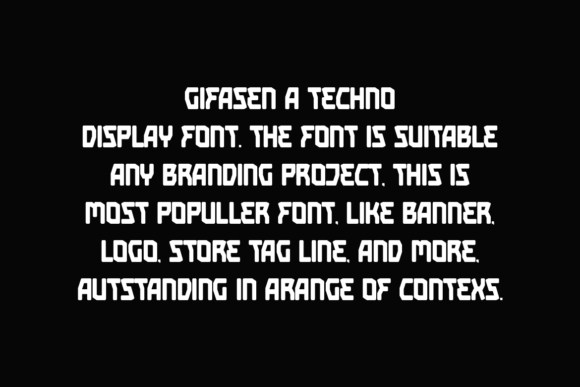
Gifasen Font: The Ultimate Display Font for Modern Urban Style
In the world of typography, fonts play a crucial role in conveying the tone and personality of a brand or design. With the ever-evolving landscape of graphic design, it’s essential to stay ahead of the curve with fresh and exciting fonts that capture the essence of modern urban style. One such font that has been making waves in the design community is Gifasen Font. In this article, we’ll dive into the world of Gifasen Font, exploring its unique features, uses, and benefits.
What is Gifasen Font?
Gifasen Font is a cool display font that exudes boldness and contemporary flair. Designed with striking shapes, dynamic angles, and eye-catching details, this font is perfect for designers looking to add a powerful and energetic vibe to their work. Whether you’re creating posters, logos, headlines, or social media graphics, Gifasen Font is the ideal choice for those who want to make a statement.
Key Features of Gifasen Font
- Bold and Contemporary Design: Gifasen Font boasts a bold and contemporary design that is sure to grab attention. Its striking shapes and dynamic angles give it a unique edge that’s perfect for modern urban style.
- Eye-Catching Details: The font features eye-catching details that add to its distinctive character. These details make Gifasen Font stand out from other fonts, making it perfect for designs that require a strong presence.
- Versatility: Gifasen Font is incredibly versatile, making it suitable for a wide range of design applications, from posters and logos to headlines and social media graphics.
- Strong Presence: The font has a strong presence that commands attention. Its bold design and eye-catching details make it perfect for designers who want to create a lasting impression.
Uses of Gifasen Font
Gifasen Font is an incredibly versatile font that can be used in a variety of design applications. Here are some of the most popular uses of this font:
- Posters: Gifasen Font is perfect for creating eye-catching posters that grab attention. Its bold design and striking shapes make it ideal for posters that require a strong presence.
- Logos: The font’s distinctive character and strong presence make it perfect for logos that require a bold and contemporary design.
- Headlines: Gifasen Font is ideal for headlines that require a powerful and energetic vibe. Its dynamic angles and eye-catching details make it perfect for grabbing attention.
- Social Media Graphics: The font’s versatility makes it suitable for social media graphics, including Facebook posts, Instagram stories, and Twitter headers.
Benefits of Using Gifasen Font
There are several benefits to using Gifasen Font in your designs. Here are some of the most significant advantages:
- Creativity: Gifasen Font delivers both creativity and impact, making it perfect for designers who want to push the boundaries of their work.
- Uniqueness: The font’s distinctive character and strong presence make it unique and memorable, setting it apart from other fonts.
- Versatility: Gifasen Font is incredibly versatile, making it suitable for a wide range of design applications.
- Attention-Grabbing: The font’s bold design and eye-catching details make it perfect for grabbing attention and creating a lasting impression.
Tips for Using Gifasen Font
While Gifasen Font is an incredibly versatile font, there are some tips to keep in mind when using it in your designs:
- Use it Sparingly: Gifasen Font is a bold font that can be overwhelming if used excessively. Use it sparingly to create a lasting impression.
- Pair it with Other Fonts: The font pairs well with other fonts, especially sans-serif fonts. Experiment with different font combinations to find the perfect match.
- Experiment with Colors: Gifasen Font looks great in bold colors. Experiment with different colors to find the perfect match for your design.
In conclusion, Gifasen Font is a cool display font that exudes boldness and contemporary flair. With its striking shapes, dynamic angles, and eye-catching details, it’s perfect for designers who want to add a powerful and energetic vibe to their work. Whether you’re creating posters, logos, headlines, or social media graphics, Gifasen Font is the ideal choice for those who want to make a statement. Its versatility, uniqueness, and attention-grabbing design make it a must-have font for any designer looking to stay ahead of the curve.
- What is Gifasen Font?: Gifasen Font is a cool display font that exudes boldness and contemporary flair.
- What are the key features of Gifasen Font?: The font features striking shapes, dynamic angles, and eye-catching details, making it perfect for modern urban style.
- What are the uses of Gifasen Font?: Gifasen Font can be used in a variety of design applications, including posters, logos, headlines, and social media graphics.
- What are the benefits of using Gifasen Font?: The font delivers both creativity and impact, making it perfect for designers who want to push the boundaries of their work.